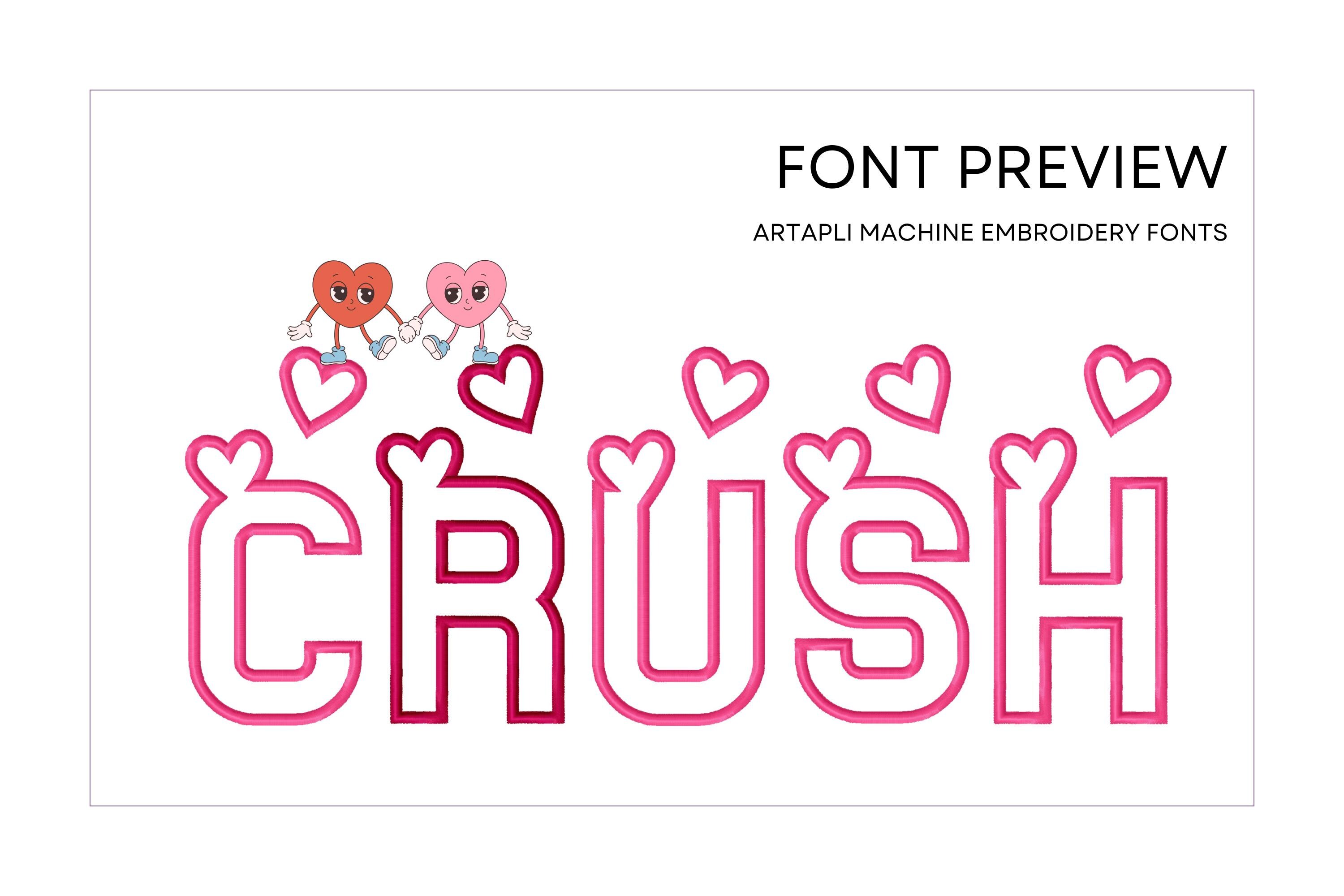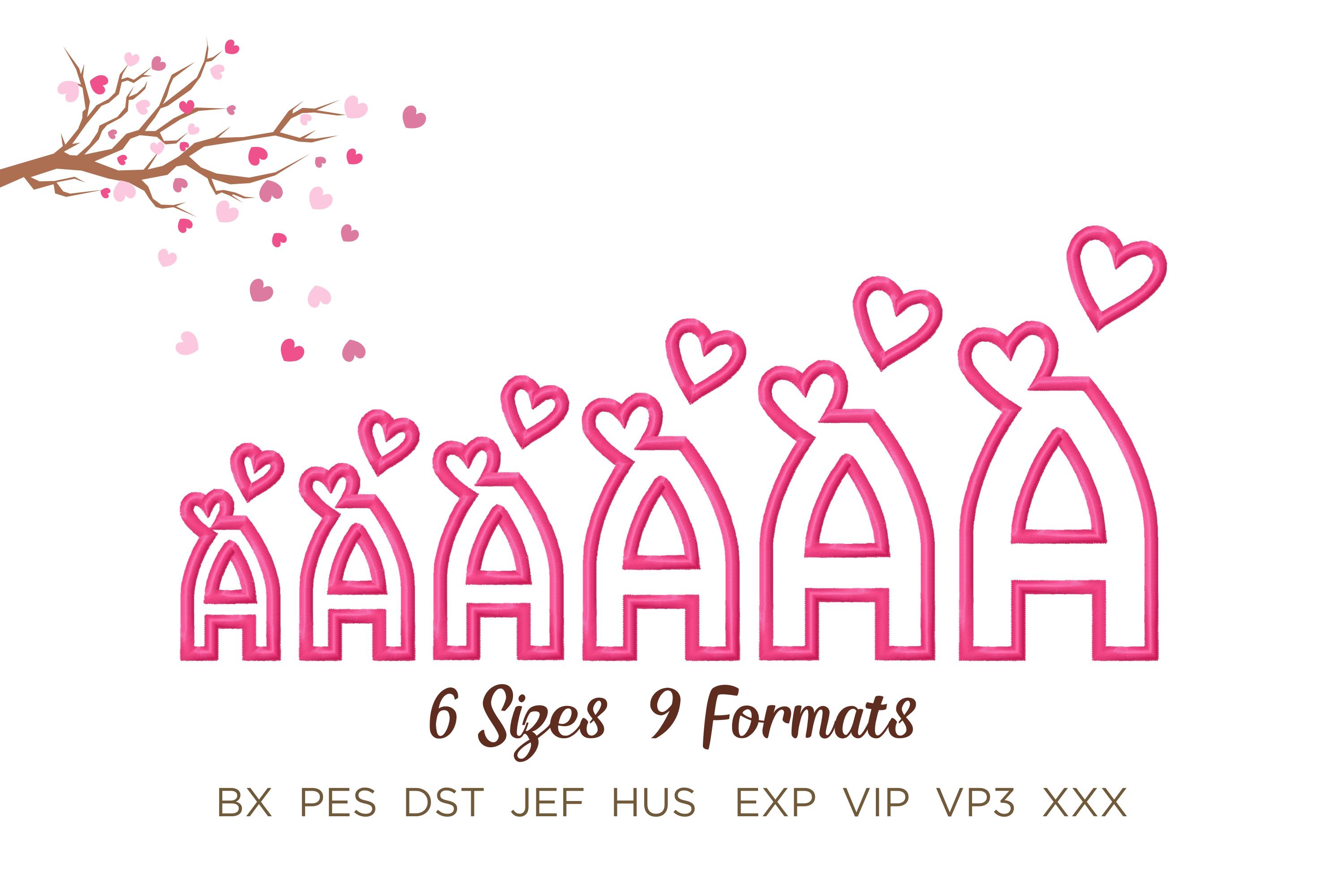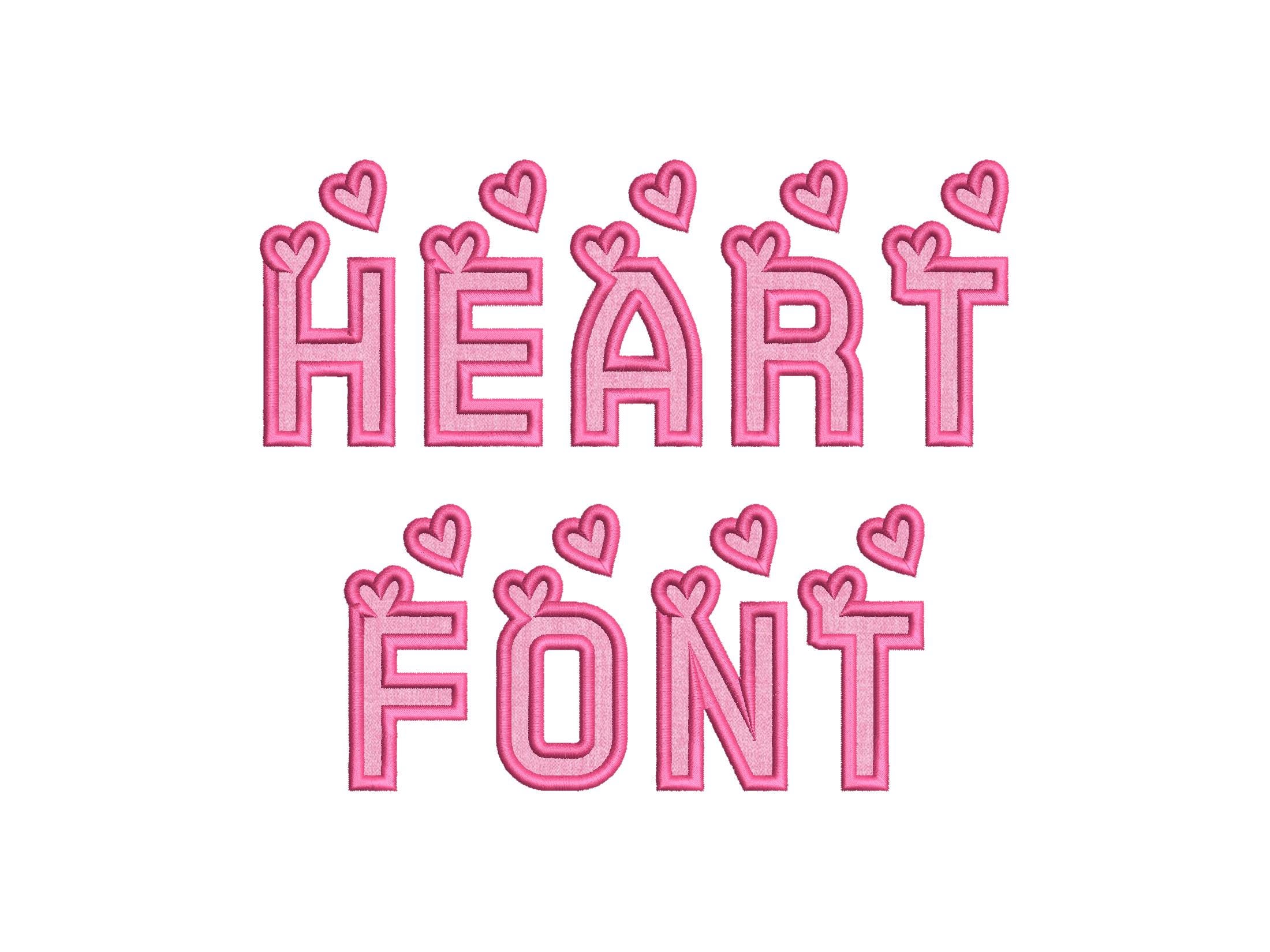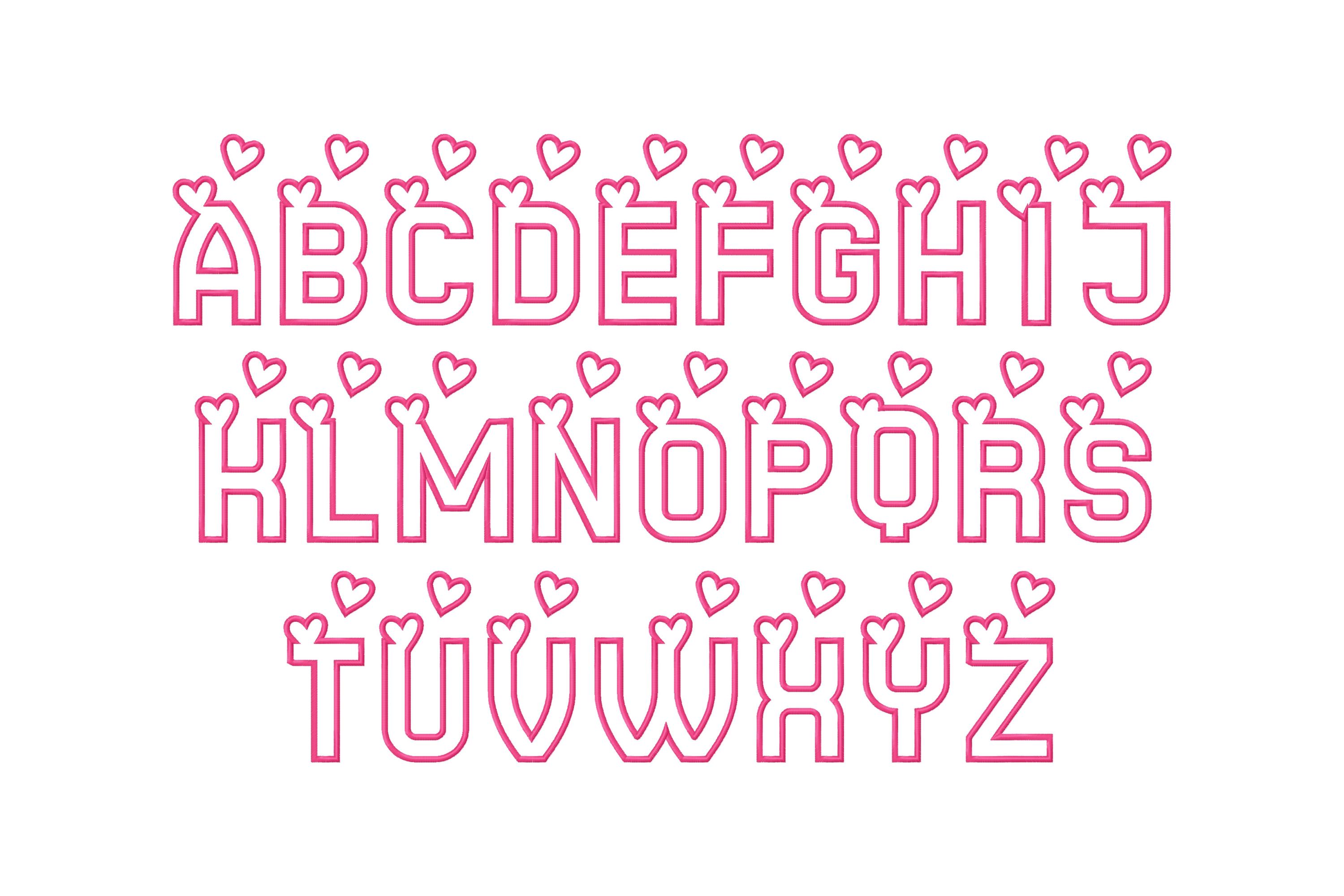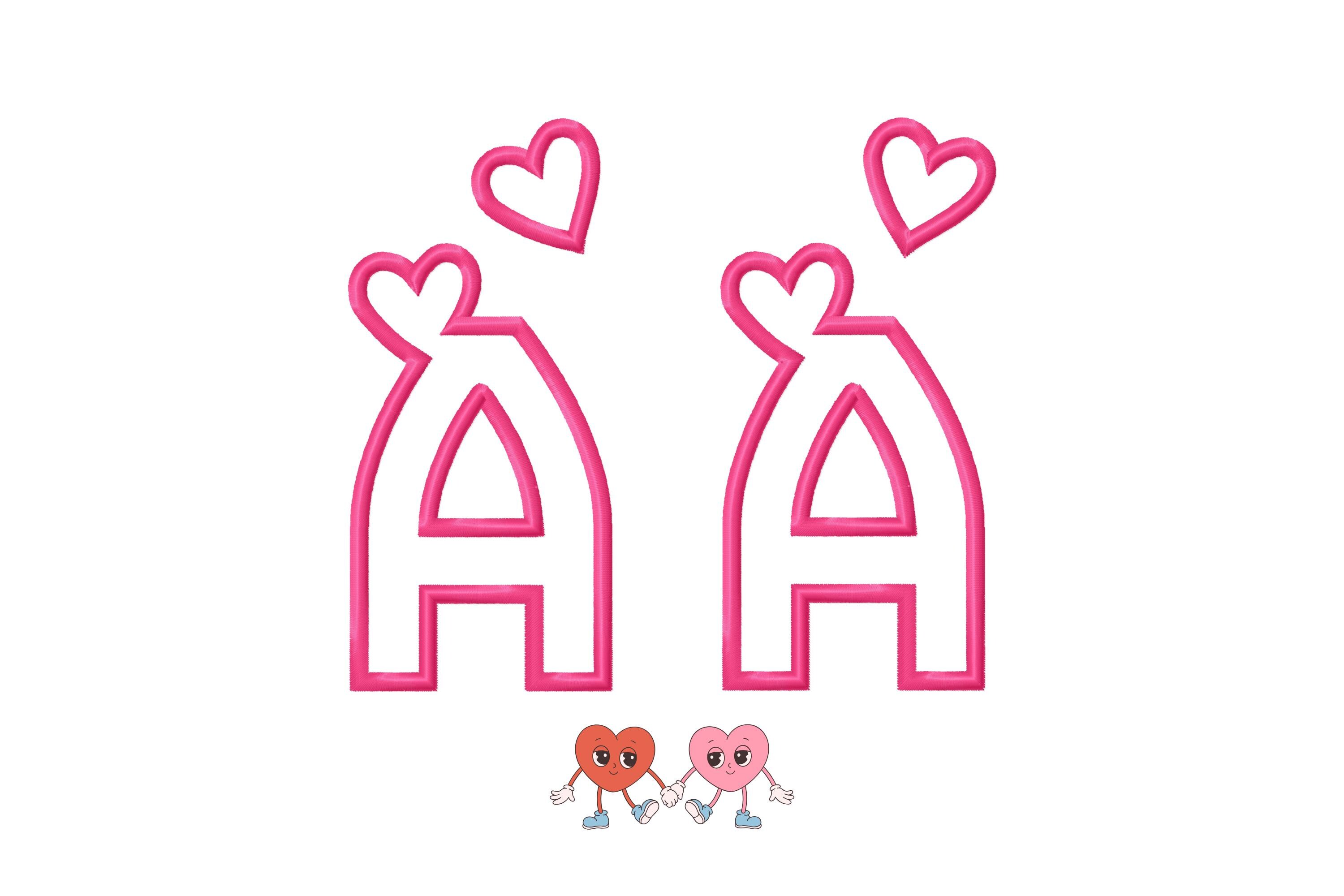
Heart Monogram Applique Font SET of 2 types machine embroidery designs Valentine alphabet Hearts letters medium sizes 2.6 up to 5 inches BX
Applique design.
Included 2 slightly different alphabets.
Entire alphabet uppercase letters A-Z.